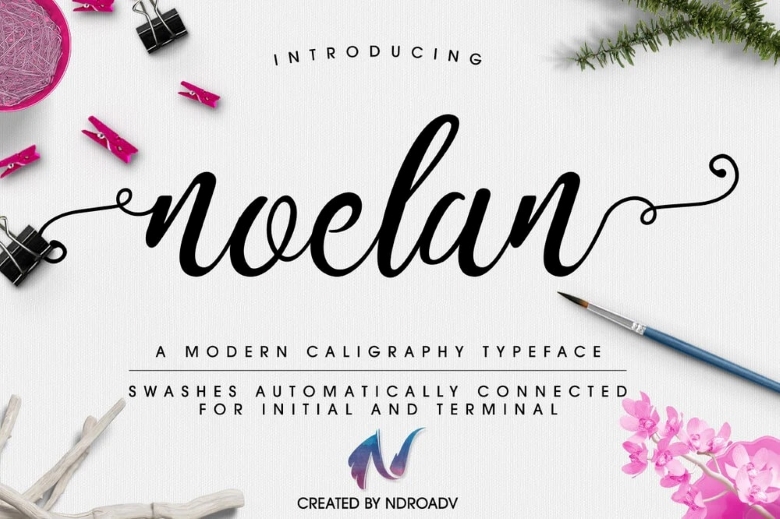
Noelan Font
Noelan is minimalist and elegant looking like most modern fonts are. Many alternates have been added to enable you to blend up the design and swashes as you wish. It may be utilized for wedding cards and card covers, birthday and greeting cards, letter heads, posters, labels and many other things!
Noelan Calligraphy Script Font